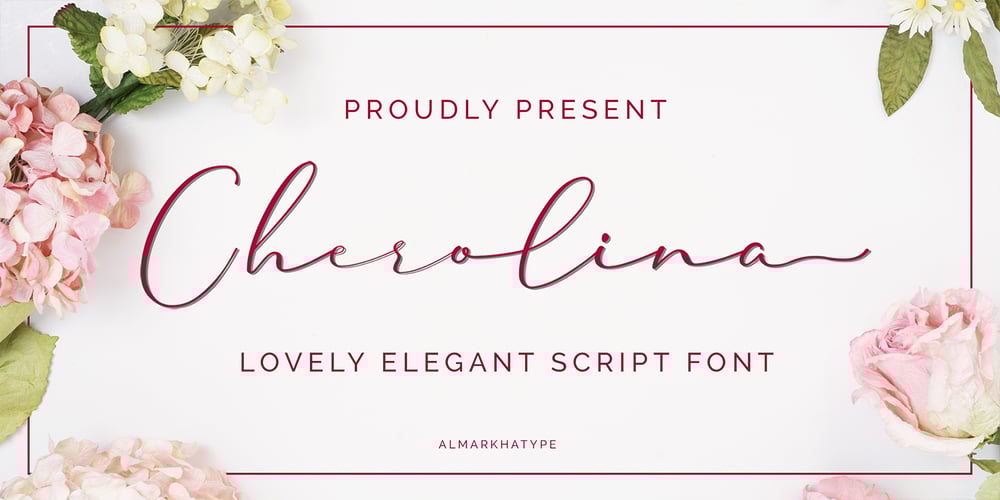
Cherolina Font Family was designed by Abdul Malik Wisnu and published by Almarkha Type. Cherolina contains 2 styles and family package options. Cherolina is a lovely elegant script font that includes a full set of uppercase and lowercase letters, numerals, multi-lingual support, punctuation and ligatures. You also get short lowercase beginning and ending swashes, and lowercase ending swashes which serve to connect two words or letters. Those are so perfect for invitations, monograms. This font also includes long lowercase beginning and ending heart swashes. Cherolina has a smooth texture so would be perfect for all types of printing techniques. You can use it for embroidery, laser cut, gold foil and more.